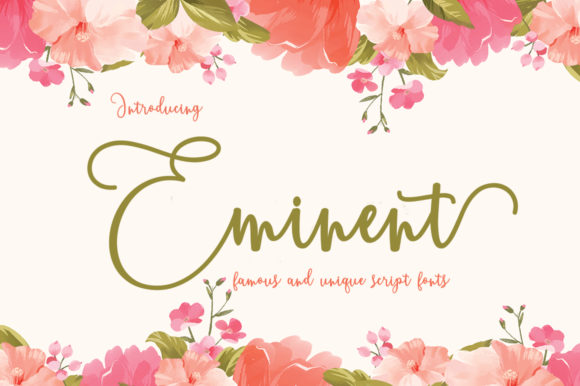
About Eminent Font
Certainly! Eminent is a font that effortlessly combines elegance and fluidity, making it a standout choice for a wide range of design projects. Its graceful handwritten style is a testament to its timeless appeal, making it a font that resonates with both classic and modern design sensibilities.
One of the most notable features of Eminent is its PUA encoding, which grants you seamless access to a plethora of glyphs and swashes. This feature opens up a world of creative possibilities, allowing you to experiment with various letter combinations and flourishes to create truly unique and personalized designs.
Eminent’s ability to maintain its classy calligraphic influences while feeling contemporary and fresh is a testament to its design versatility. This makes it an excellent font choice for a variety of projects. Imagine using Eminent to design wedding invitations that exude sophistication and romance. The flowing strokes and intricate details of the font’s characters add a touch of timeless elegance to such special occasions.
For branding, Eminent can convey a sense of refinement and authenticity. Whether you’re creating logos, business cards, or packaging, the font’s harmonious balance of elegance and modernity ensures that your brand’s identity is both distinctive and captivating.
Eminent also shines when used in editorial designs, such as magazine layouts, book covers, and editorial spreads. Its smooth lines and graceful curves contribute to a reading experience that feels polished and inviting.
Social media posts take on a new level of elegance with Eminent. Whether you’re sharing inspirational quotes, promoting products, or engaging with your audience, the font’s flowing and refined look adds a touch of sophistication to your visual content.
Pairing Eminent with other design elements, such as illustrations or graphics, can yield visually stunning results. The font’s ability to seamlessly blend with various styles ensures that it complements and enhances your overall design composition.
In essence, Eminent is a font that encapsulates the beauty of calligraphy with a modern twist. Its PUA encoding and versatile design make it a powerful tool for creating designs that elevate your projects to new heights. So, fall in love with Eminent’s elegance, and let its flowing handwritten style add a touch of timeless charm to your creative endeavors.